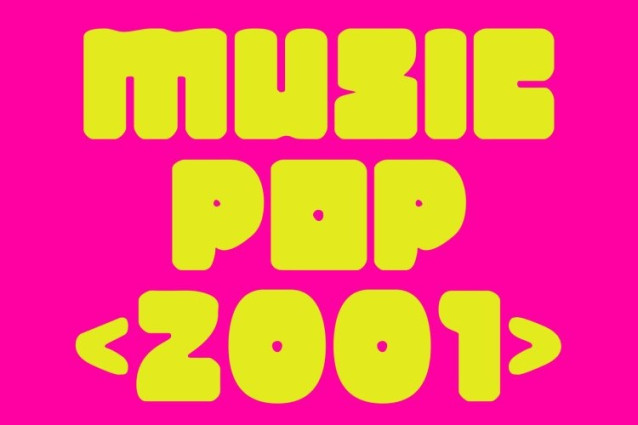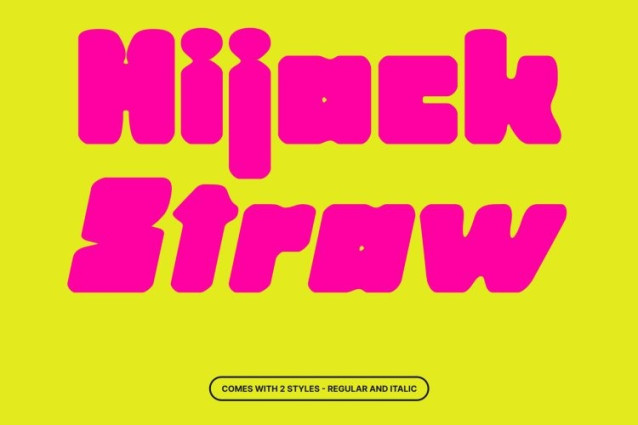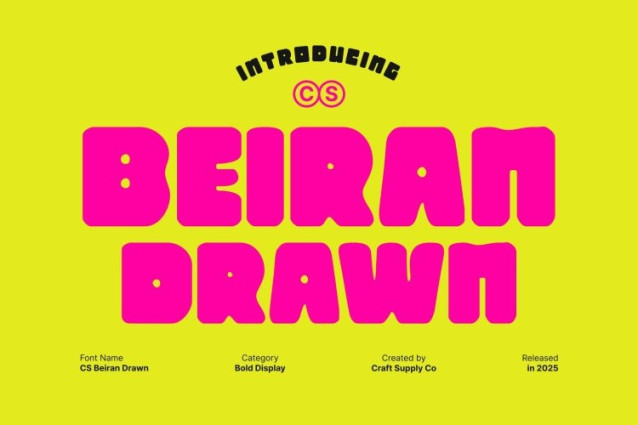
CS Beiran Drawn Font
CS Beiran Drawn Font This is a bold, chunky display font designed to make an instant impression. Its strong, blocky letterforms radiate confidence and modern appeal, while the hand-drawn texture adds warmth and authenticity. Subtle funky details introduce a playful, retro-inspired character that gives every design a unique and expressive visual voice.
Thick Strokes for Powerful Visual Impact
Built with thick strokes and solid construction, this font delivers excellent legibility and commanding presence. The sturdy forms ensure your text stands out effortlessly, making it a go-to choice for attention-grabbing headlines, posters, and bold branding visuals that demand visibility and impact.
Where Playful Retro Meets Modern Design
The balance between geometric precision, quirky charm, and hand-drawn nuance gives this font a fresh and versatile look. It feels nostalgic yet contemporary perfect for projects that blend fun creativity with confident modernity, without feeling dated or overly rigid.
Perfect for Eye-Catching Creative Projects
From product packaging and branding to social media graphics and editorial layouts, this font brings bold charm and lively energy to any creative project. Whether aiming for retro flair or modern impact, this font ensures your message feels strong, stylish, and full of personality.